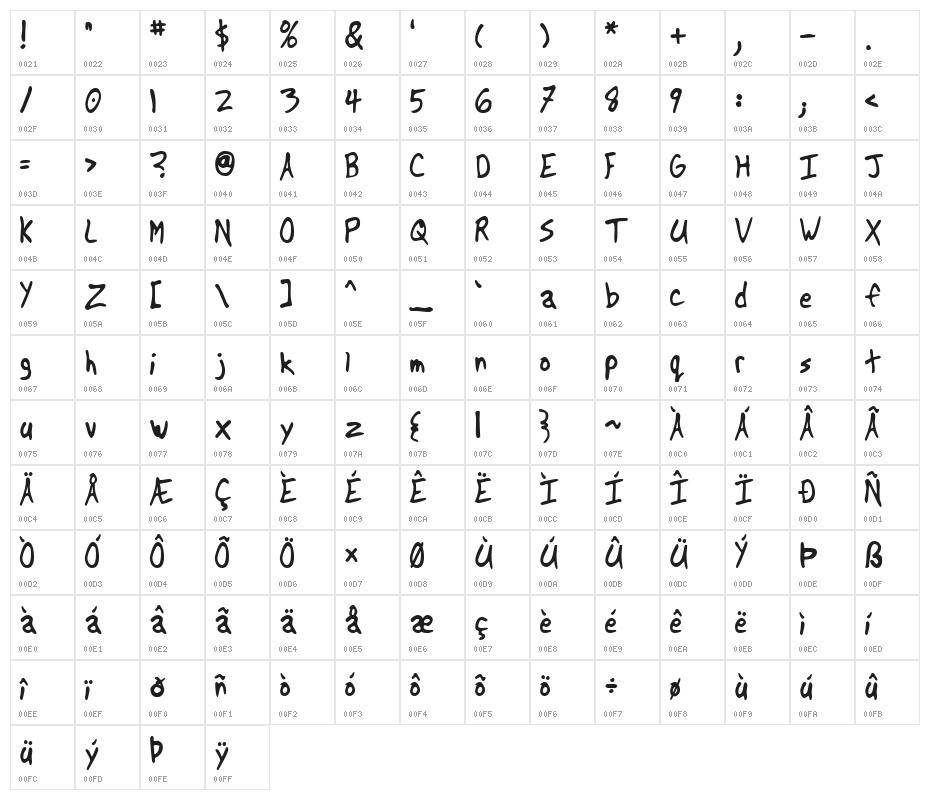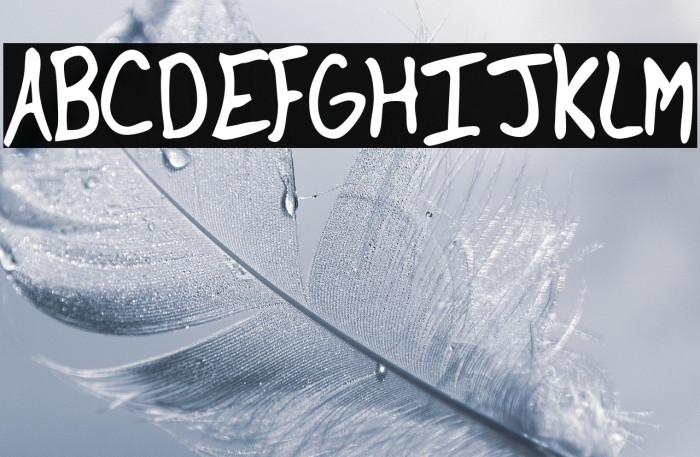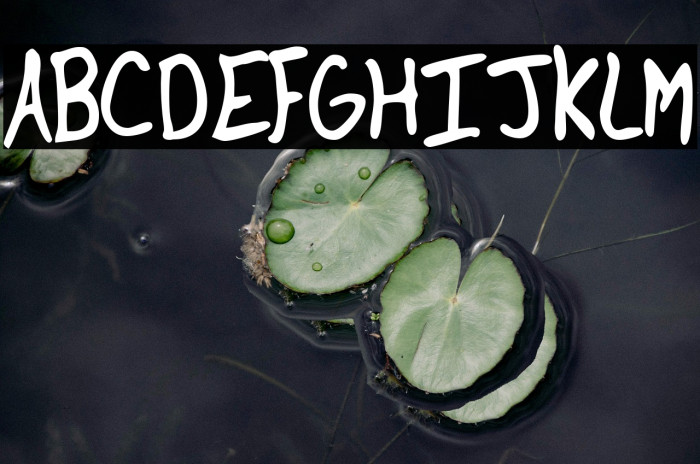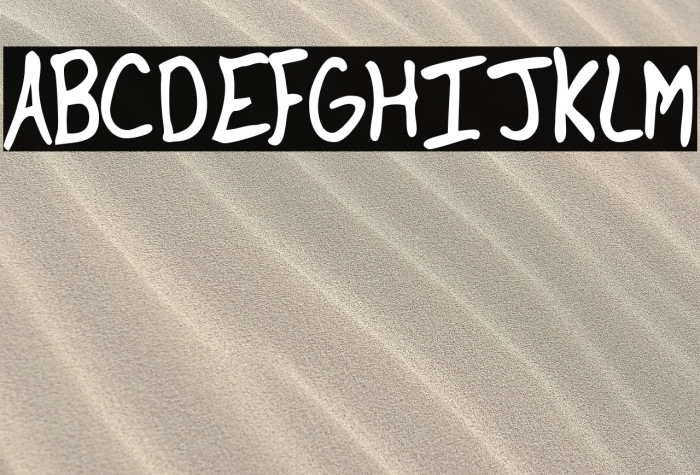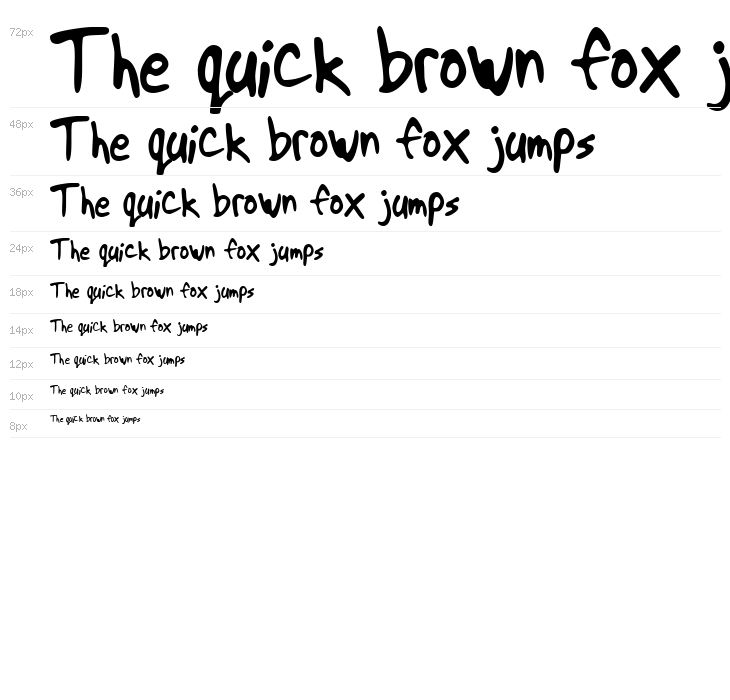
This font features a playful and informal handwritten style, characterized by its irregular and slightly uneven letterforms. The strokes are bold and rounded, giving it a friendly and approachable appearance. The uppercase and lowercase letters maintain a consistent style, with a slight slant that adds to the casual feel. Numbers and special characters follow the same design principles, ensuring uniformity across the set. The overall look is dynamic and energetic, making it suitable for projects that require a personal touch or a sense of whimsy.
| Overall Style | Casual, Playful |
| Use Case | Headlines, Logos, Informal Text |
| Proposed Projects | Ideal for children's books, greeting cards, informal invitations, and playful branding projects. |